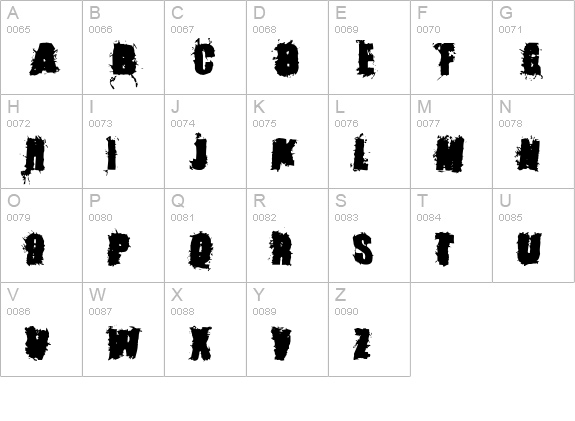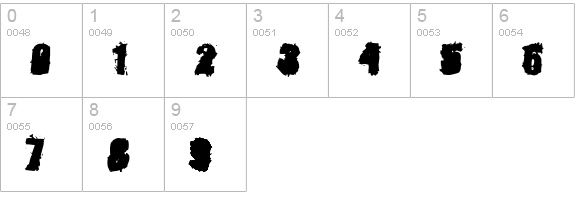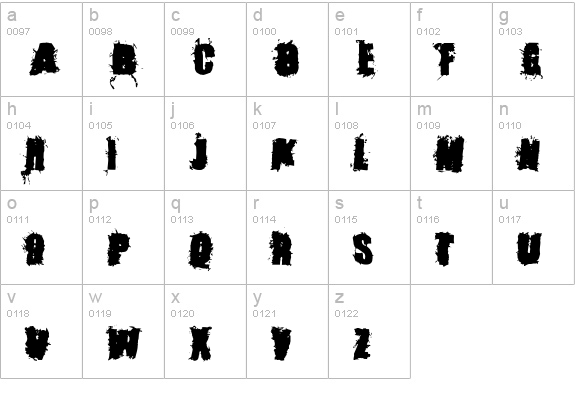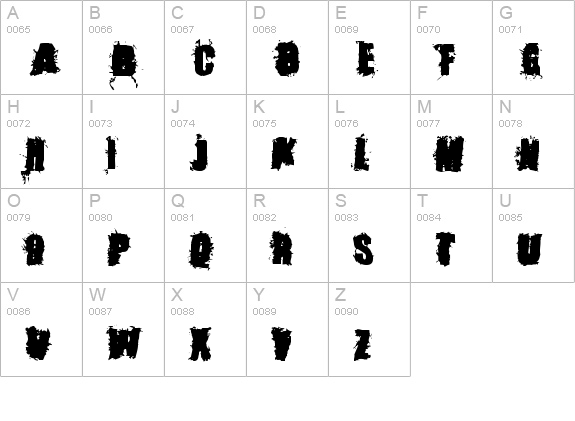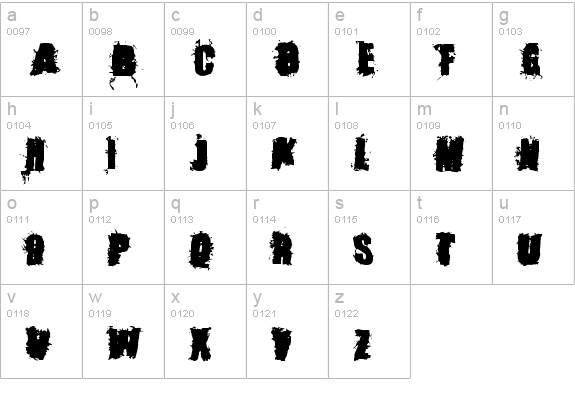
Stone Cold Font Details
Stone Cold font is a bold and rugged typeface that exudes strength and resilience. Its sharp edges and solid presence make it perfect for conveying a sense of power and determination in your designs. The font's distinctive style gives off a cool and edgy vibe, making it ideal for projects that require a modern and impactful look. What's even better is that Stone Cold font is available for free download at FontsMarket.com. This means you can easily access this unique and eye-catching font to enhance your creative projects without any cost. Don't miss out on the opportunity to add a touch of boldness to your designs with the Stone Cold font, now available for free at FontsMarket.com.